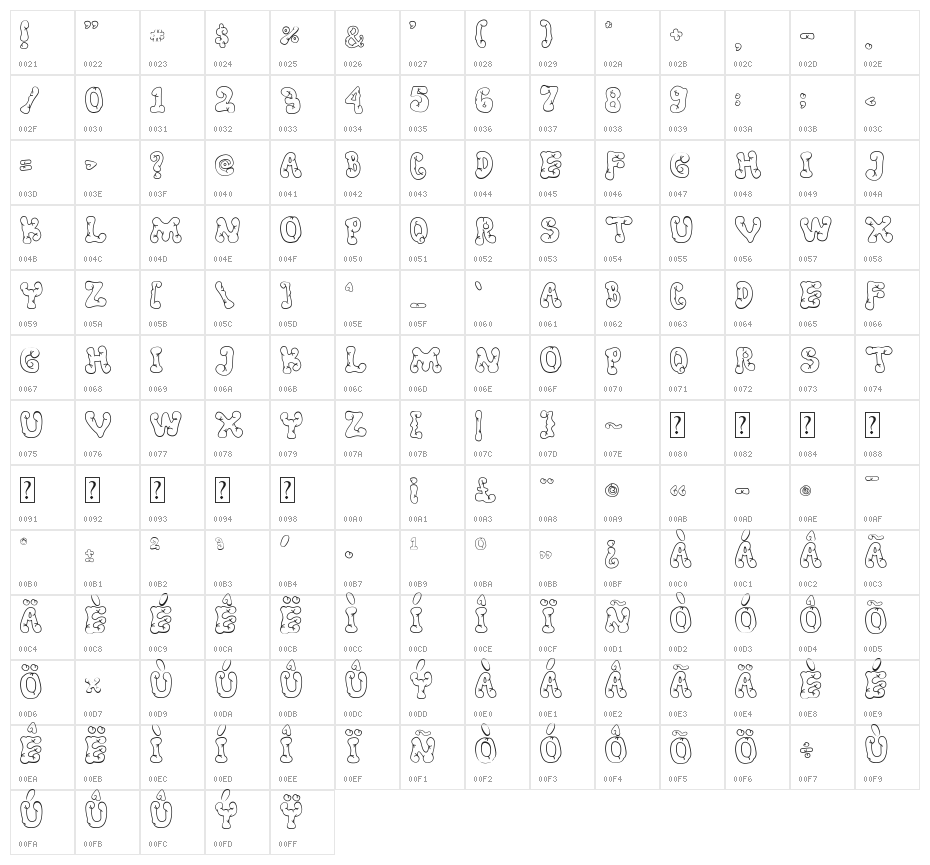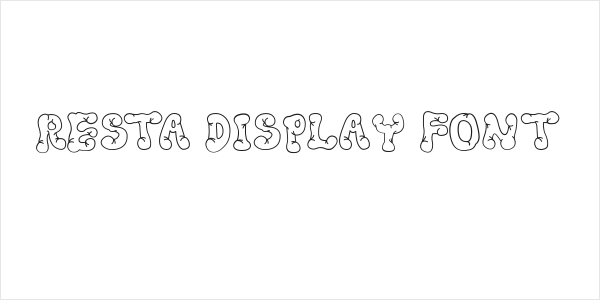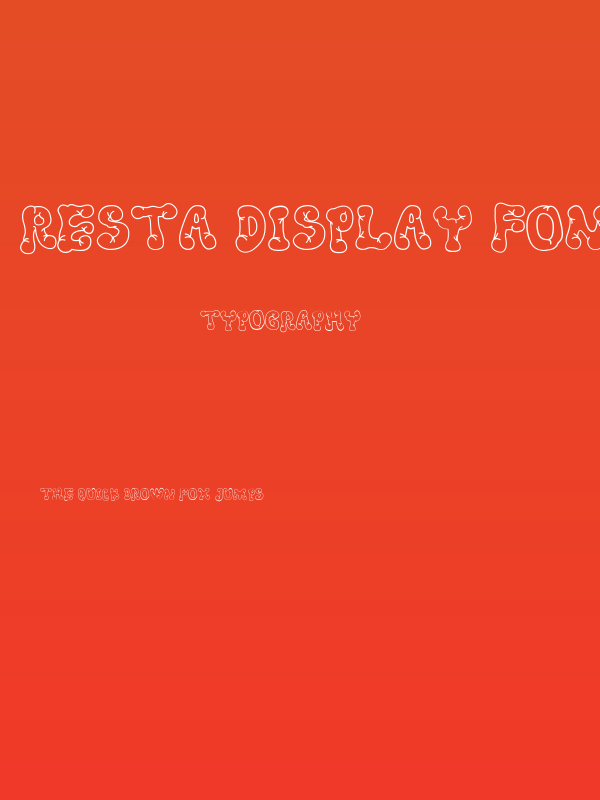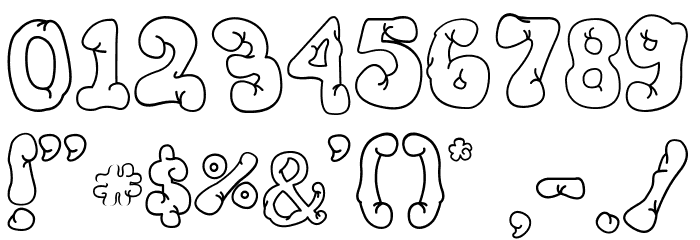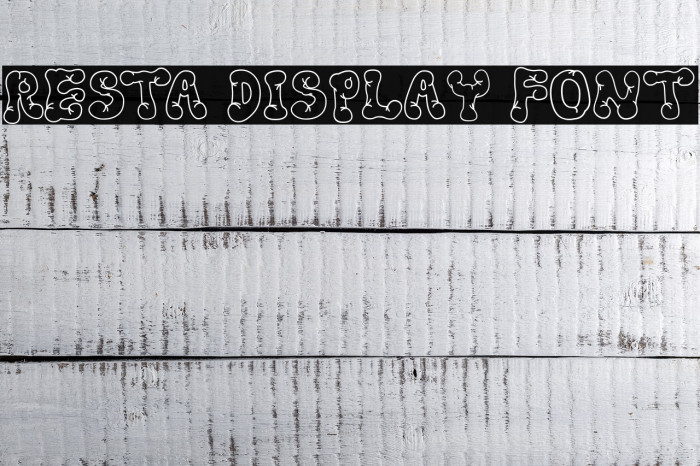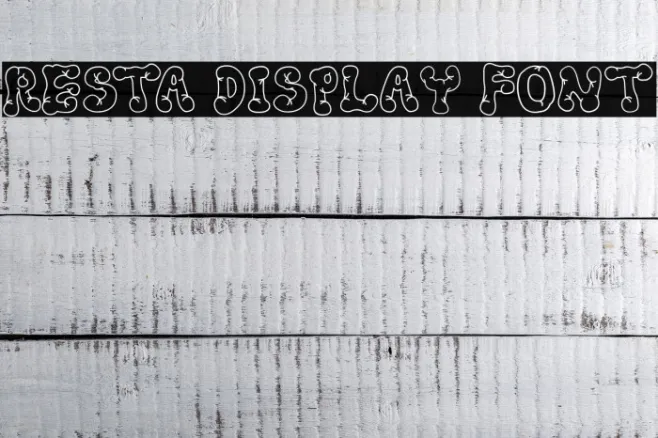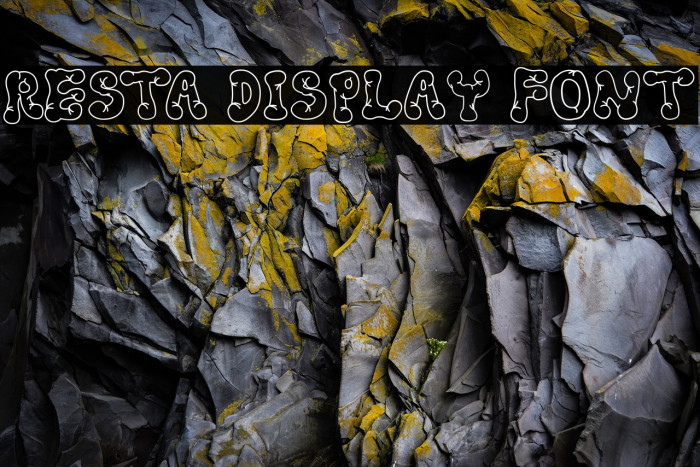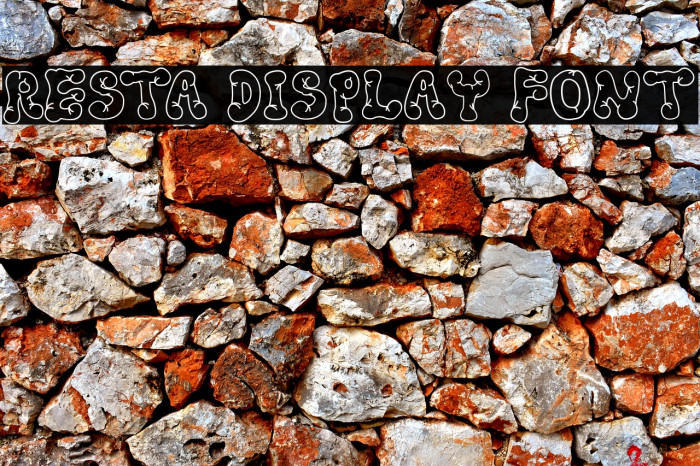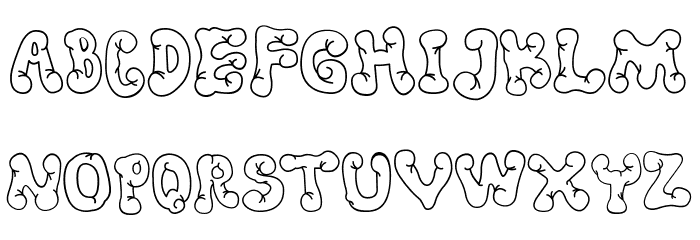
Resta Display Font Font
Resta Display Font Description
This font features a playful and whimsical design, characterized by its bold, bubble-like letterforms. Each character is outlined, giving it a distinct, cartoonish appearance. The strokes are rounded and exaggerated, creating a sense of fun and movement. The font includes both uppercase and lowercase letters, numbers, and a variety of special characters. Its unique style makes it stand out, with a focus on creativity and expression. The overall design is highly decorative, making it suitable for projects that require a lively and engaging typeface.
| Proposed Projects | Ideal for children's books, party invitations, playful branding, and creative posters. |